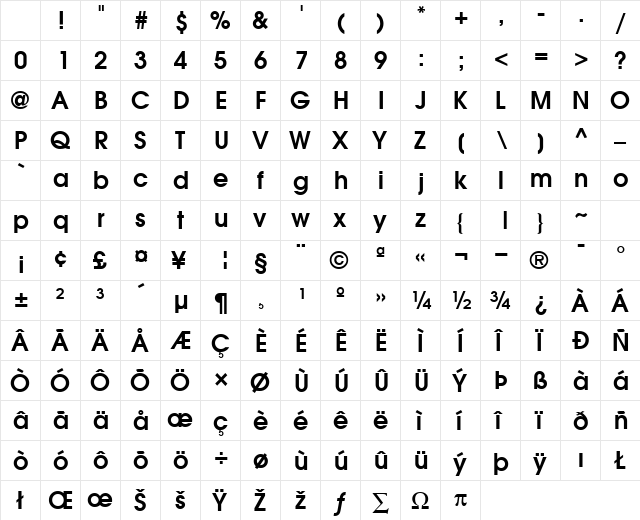
Complete Forefront DemiSH glyph index. Displaying only characters natively supported by Forefront DemiSH font.
Forefront is a composed and adaptable typeface that performs quietly and consistently across a wide range of design contexts.